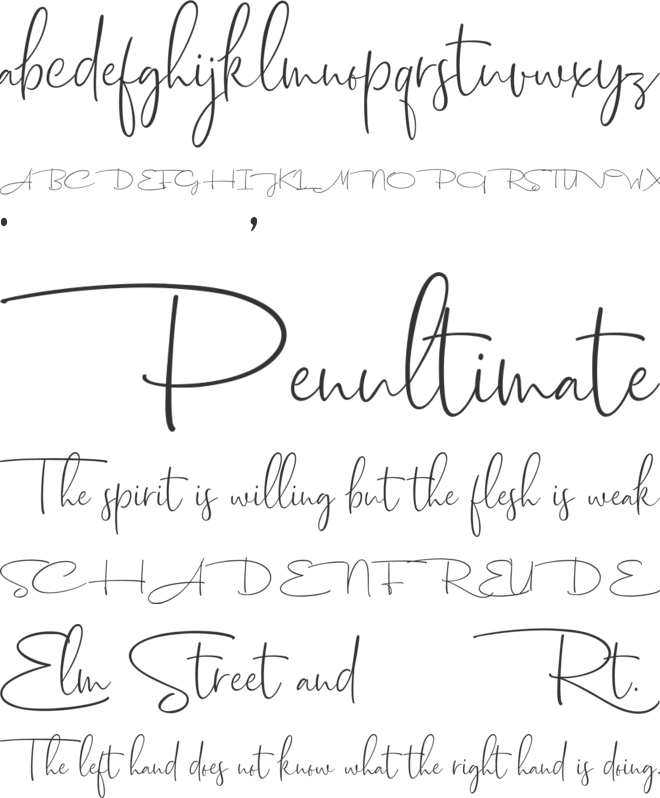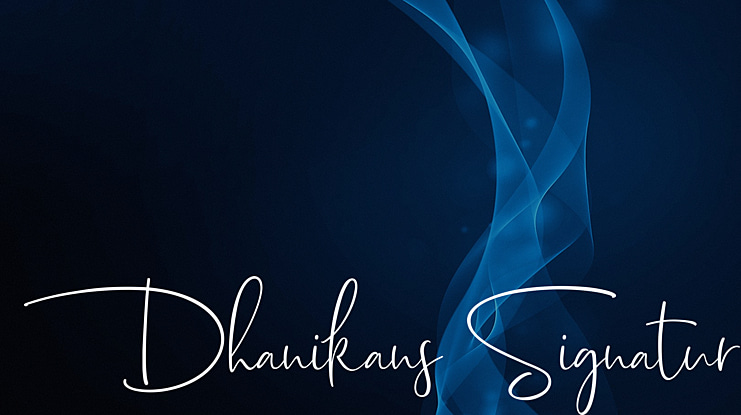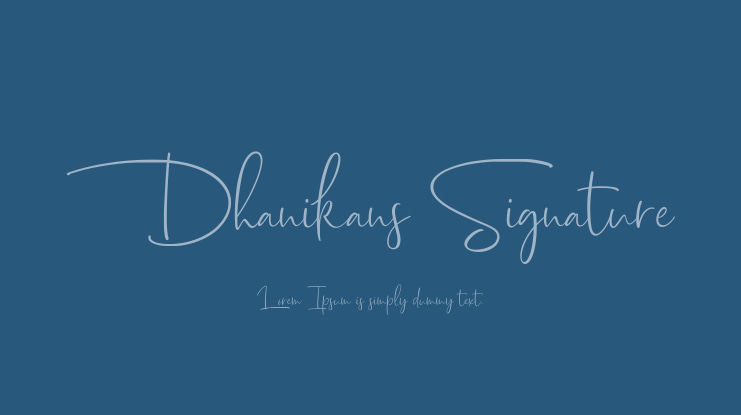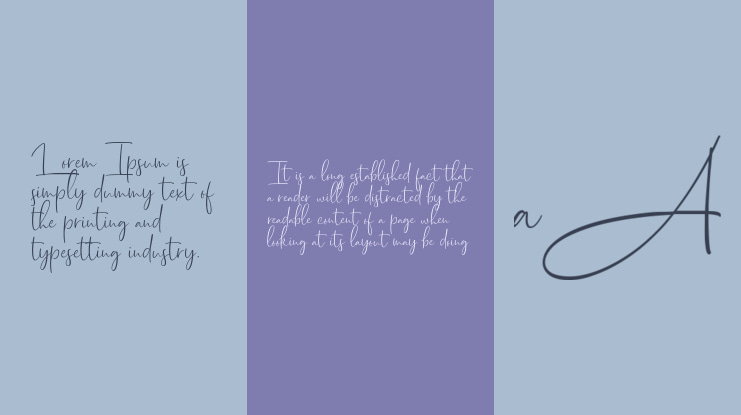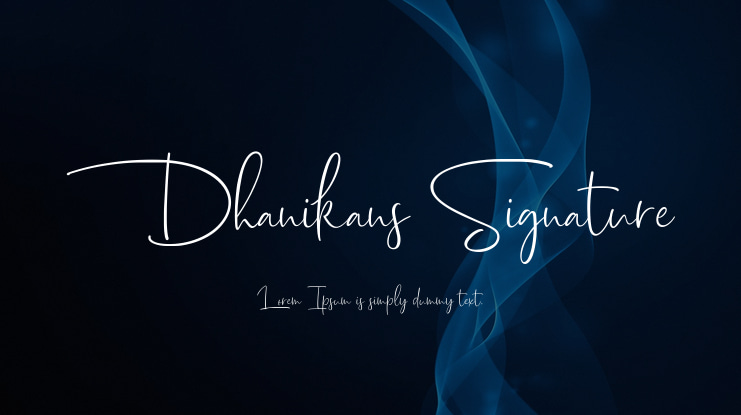
Dhanikans Signature 2 Font Family
Dhanikans Signature 2 is a unique, cool and modern handwritten font. It's hand look style makes it perfect for use in all your design projects be it logos, signatures, labels, packaging design, blog headlines.